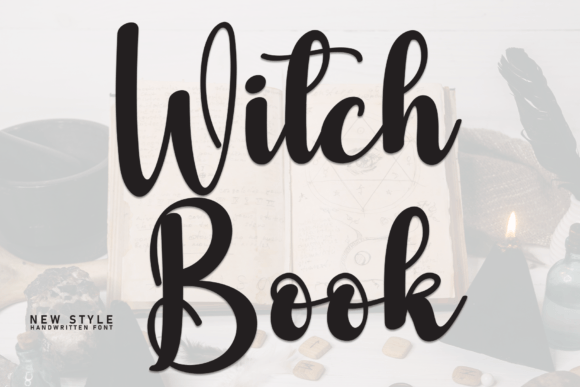
Journey into the realm of enchantment with Witch Book Font. This magical script, crafted by the skilled hands of Strongkeng Old, captivates with its enchanting curves and whimsical charm. Ideal for adding a touch of whimsy to your creative endeavors, Witch Book is the perfect companion for those seeking beauty and originality.
Unleash your imagination and embrace the boundless possibilities that await you with Witch Book Font. Whether you're a seasoned designer or just starting your creative journey, this font will cast a spell on your projects. Its sweet and friendly demeanor, reminiscent of a handwritten letter from an old friend, adds a touch of warmth and personality to any design.
Picture the delicate strokes of Witch Book gracefully flowing across your wedding invitations, bringing a touch of timeless elegance to your special day. Its playful nature lends itself perfectly to cards, posters, and social media graphics, adding a dash of charm and whimsy. This font is also ideal for creating eye-catching logos and branding elements that will make your business stand out from the mundane.
Elevate your digital presence with Witch Book Font, the ultimate choice for captivating UI and UX designs. Its enchanting curves and distinctive style will create an immersive user experience that will leave a lasting impression. Whether you're designing websites, mobile applications, or digital advertisements, Witch Book will add a touch of magic that sets your creations apart.
From heartfelt letters to captivating marketing campaigns, Witch Book Font is the key to unlocking your creative potential. Its versatility knows no bounds, allowing you to effortlessly adapt it to any project you envision. Say goodbye to ordinary fonts and embrace the enchanting world of Witch Book, where creativity flourishes and dreams come alive.